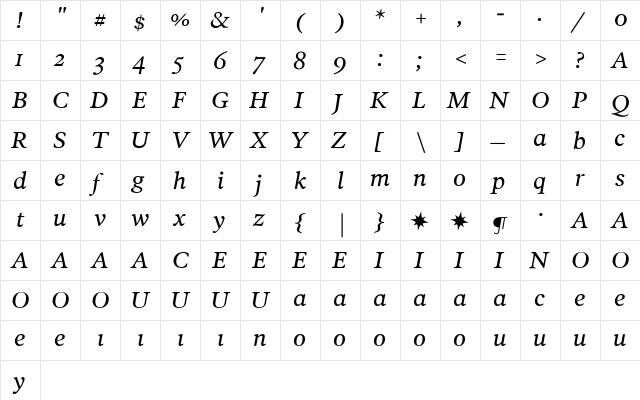
PoynterText Regular
Design Context for PoynterText Typeface
PoynterText offers clean, dependable letterforms without strong stylistic allegiance, making it a practical choice for designers who need flexibility.